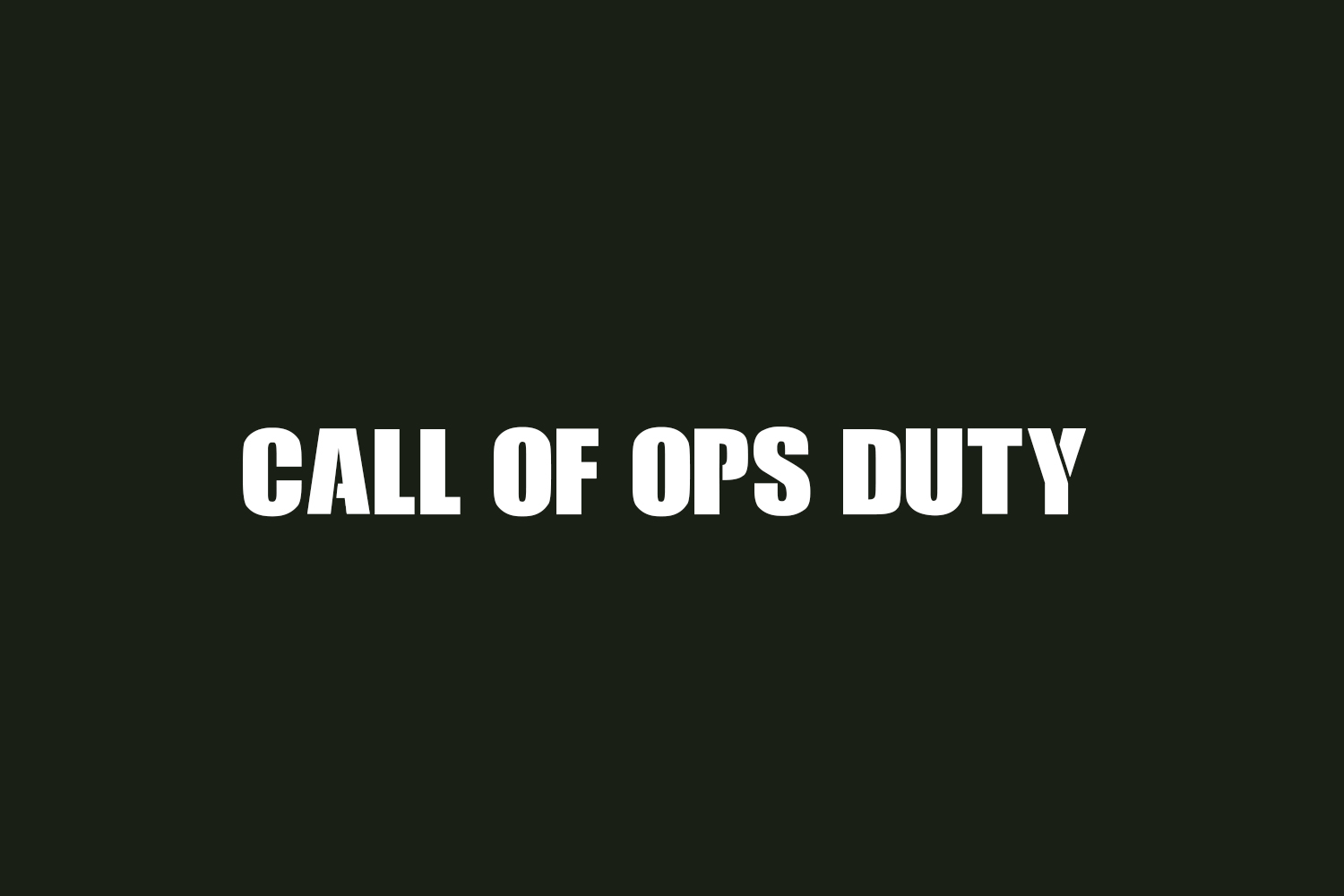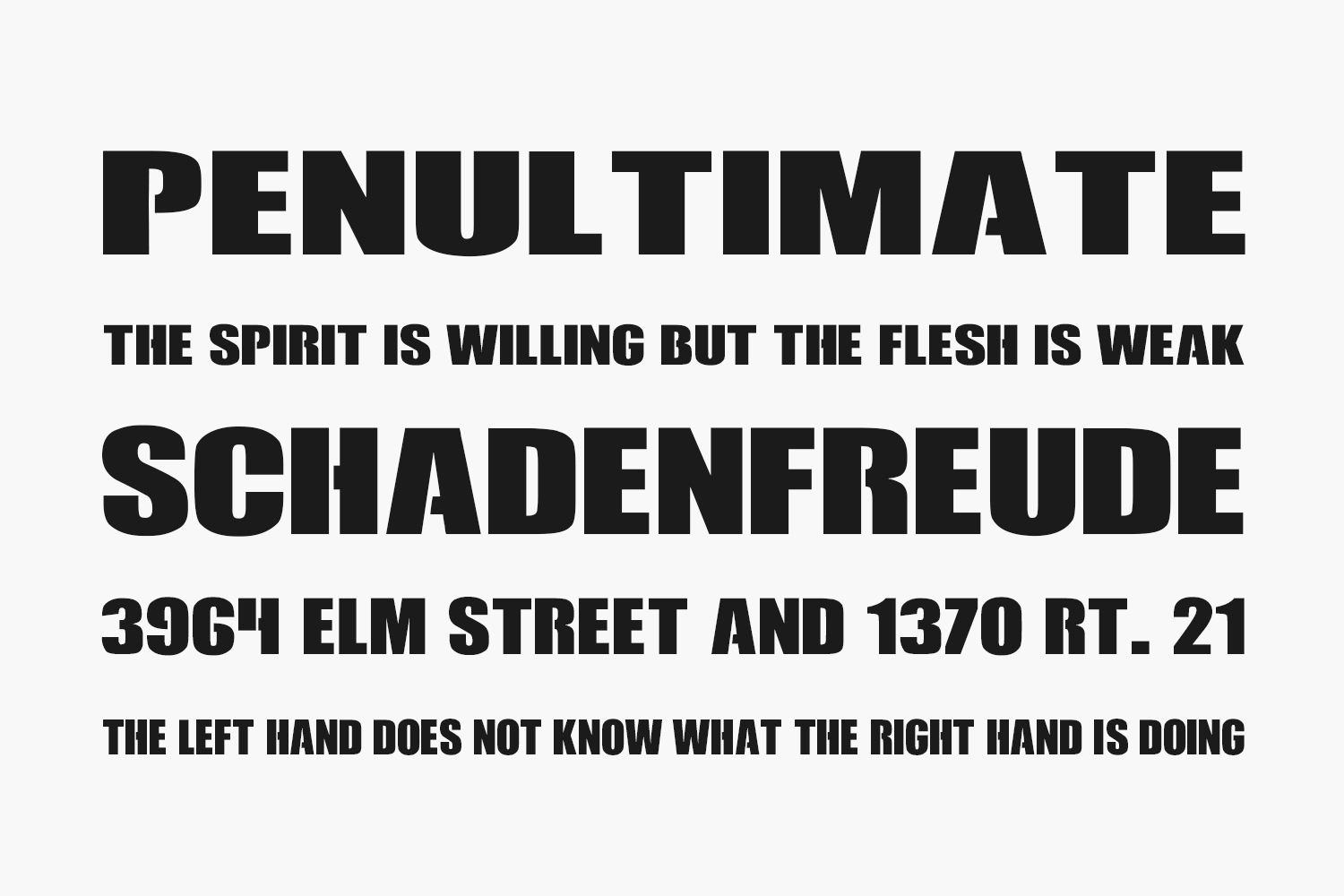
Call of Ops Duty Free Font based off “Impact”, and inspired by the Call of Duty logo. Call of Ops Duty Free Font is free for personal and commercial use.